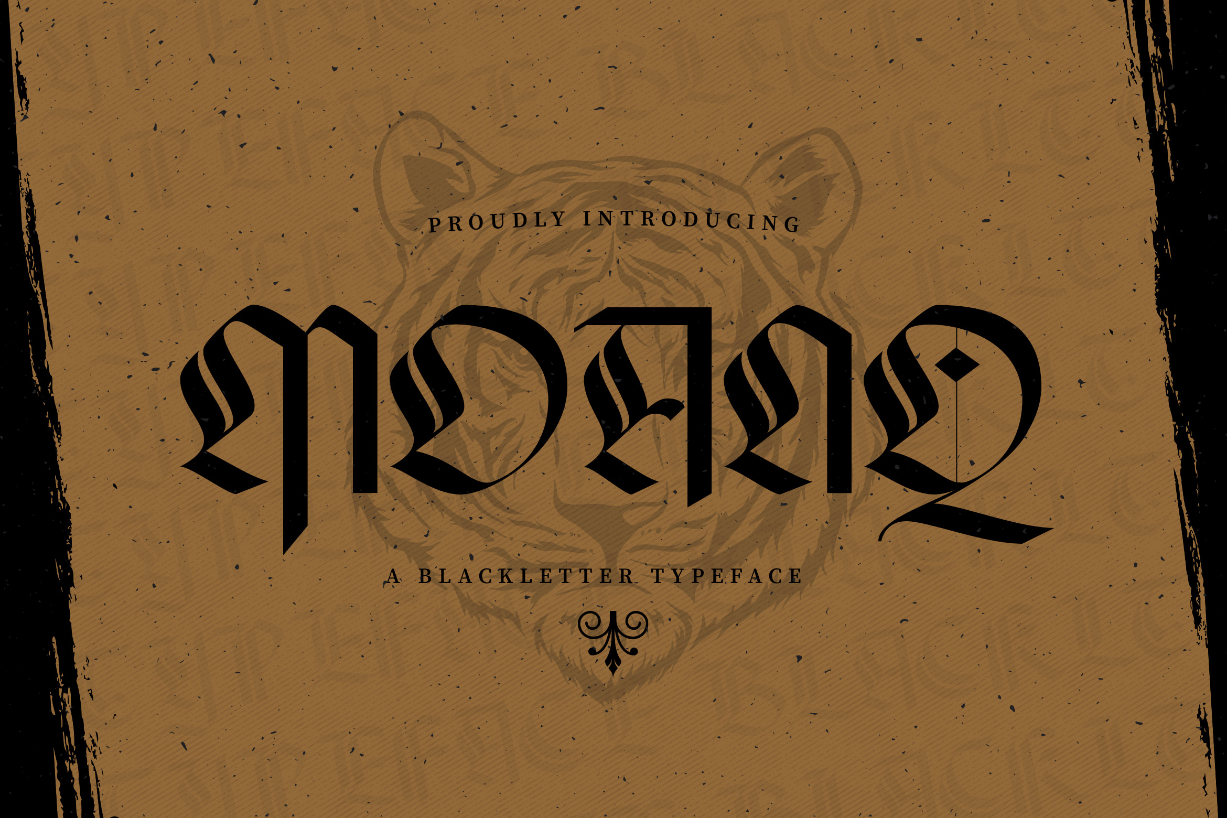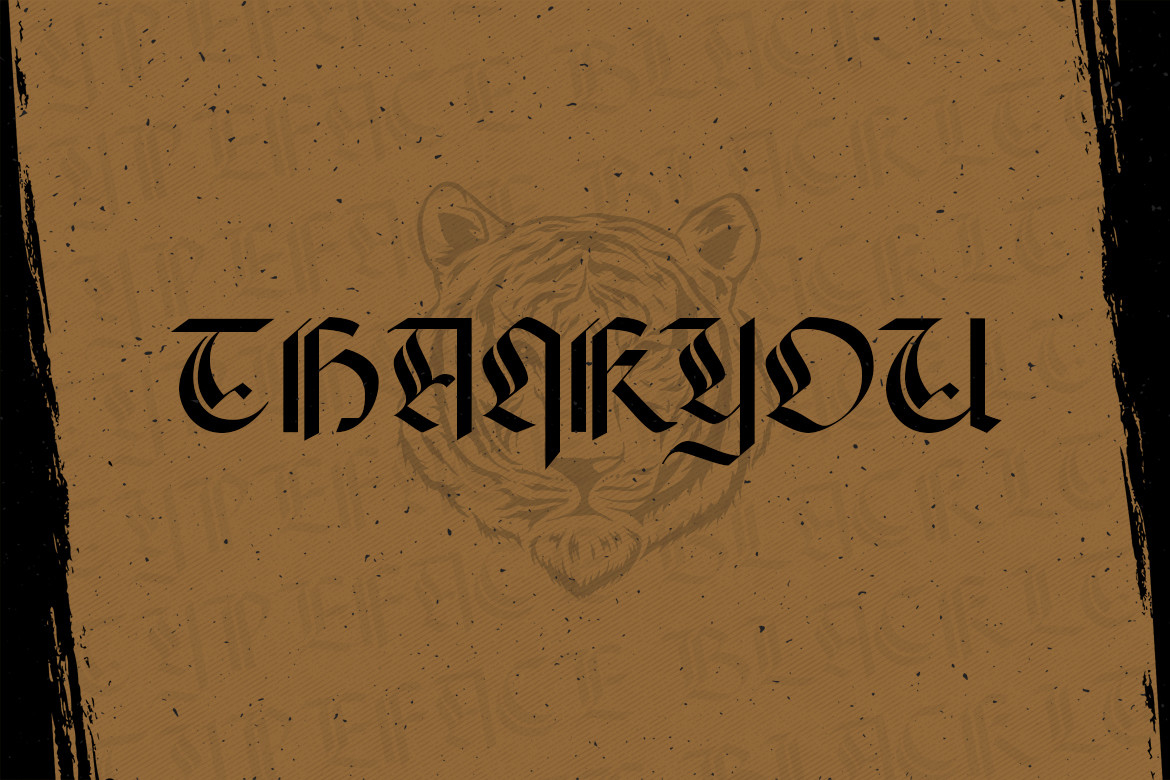
About Moanq Font
Embrace the bold and timeless allure of “Moanq” – a blackletter typeface that commands attention and evokes a sense of history and intrigue.
With its strong and distinctive letterforms, “Moanq” captures the essence of traditional blackletter typography. Each character is meticulously crafted with intricate details, showcasing a perfect balance between elegance and strength, making it ideal for logos, branding, posters, and more.
Experience the rich heritage and Gothic charm of “Moanq” as it adds a touch of sophistication to your designs. Whether you’re working on medieval-inspired projects, creating vintage-themed artwork, or crafting unique typographic compositions, this typeface will captivate your audience with its timeless aesthetics.
Unleash the power of “Moanq” and let your designs make a lasting impression!